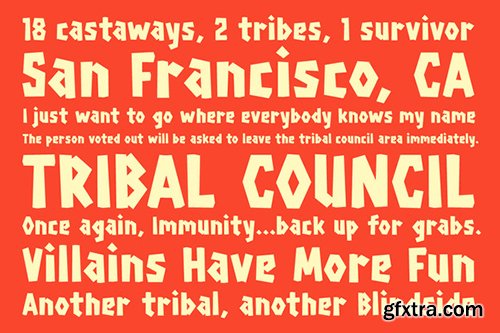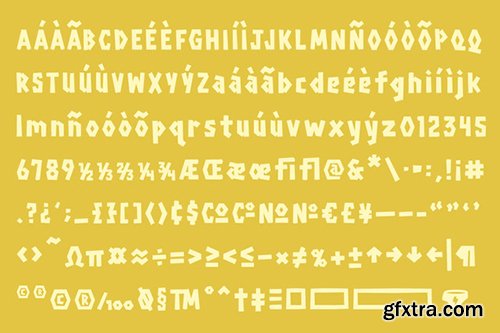
CreativeMarket Survivor Display Font 489584
Survivor the font is a adventure, nature, and wilderness font able to cover many uses. Its founded in the jagged forms of rocks and natural wood while still holding to modern typographic forms. This font includes a vast amount of characters, as seen in the display image, including a few extra glyphs like 3 solid bars and 3 boxes which can be used and modified in your designs.https://creativemarket.com/thomas_ramey/489584-Survivor-Display-Font